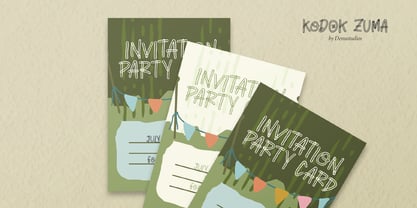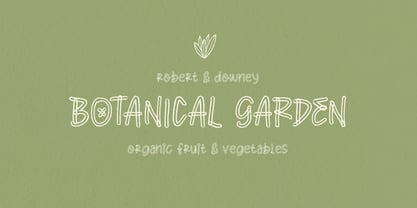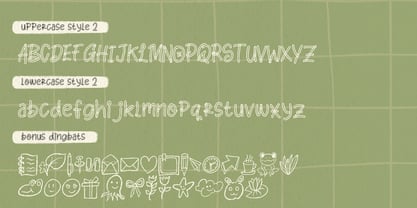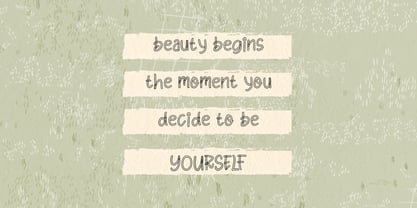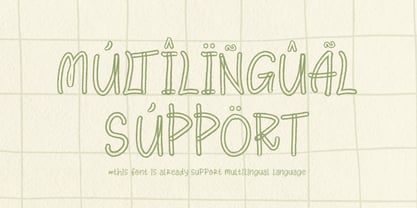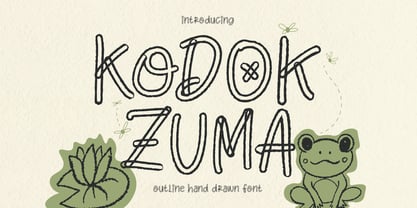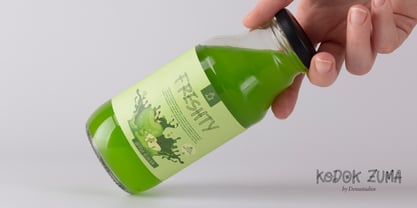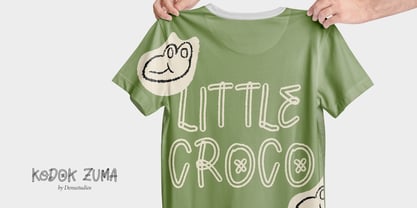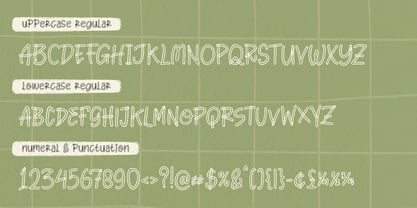
Kodok Zuma
by Denustudio
The Kodok Zuma Font Family was designed by Dede Nugraha and published by Denustudio. Kodok Zuma contains 2 styles and family package options.
Kodok Zuma | Outline Hand Drawn, from Denustudios, suitable for any projects such as: logos, branding projects, homeware designs, product packaging, mugs, quotes, posters, shopping bags, t-shirts, book covers, name card, invitation cards, greeting cards, label, photography, watermark, special events, and all your other lovely projects that need a Outline Hand Drawn taste.
• Regular and Italic
• Alternate and Ligature